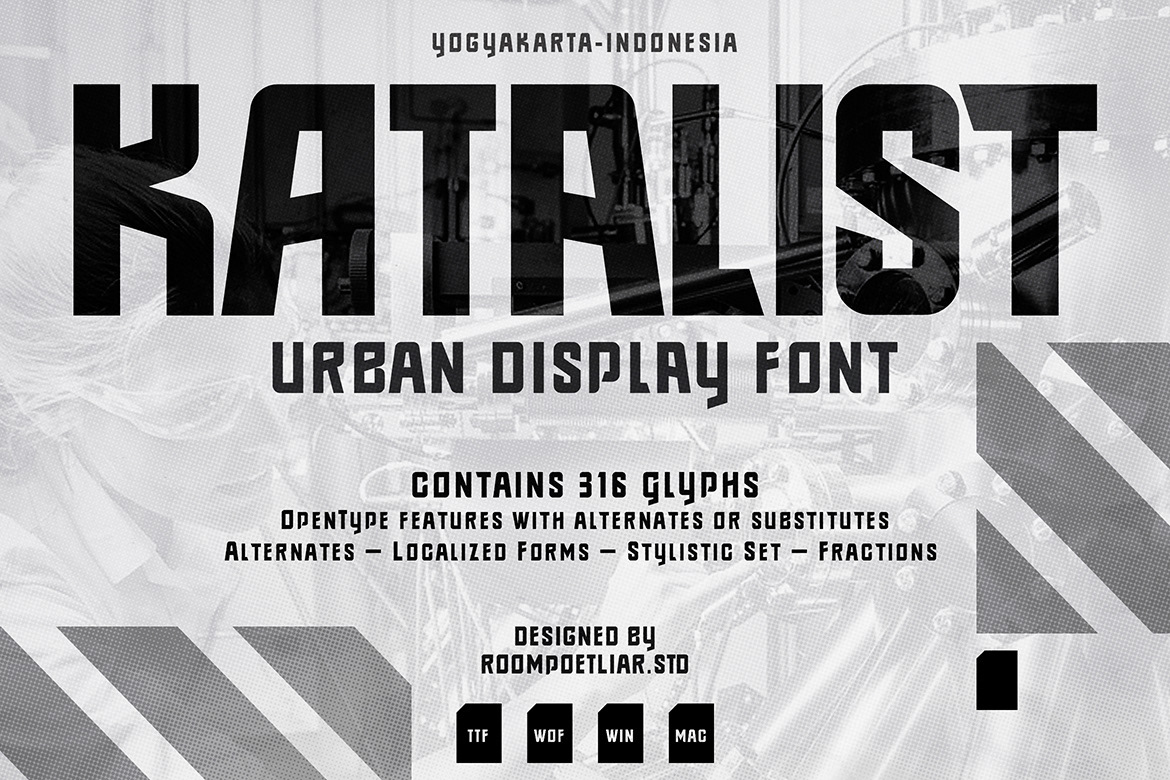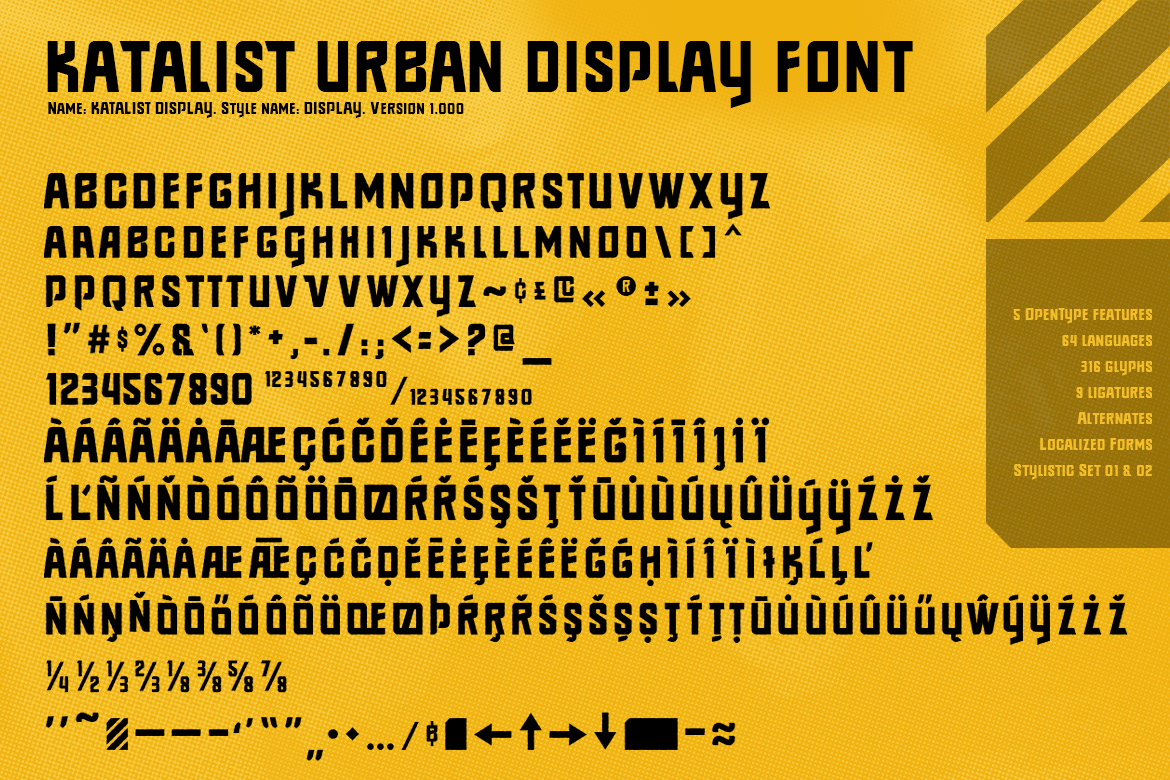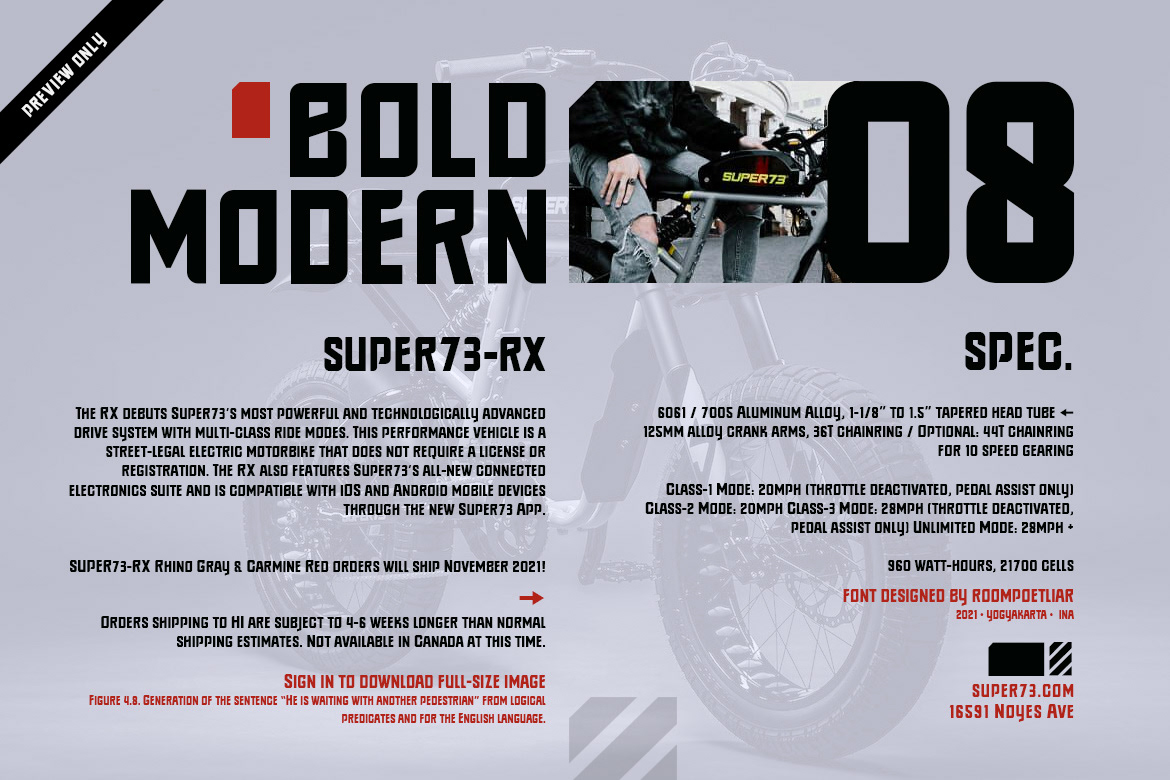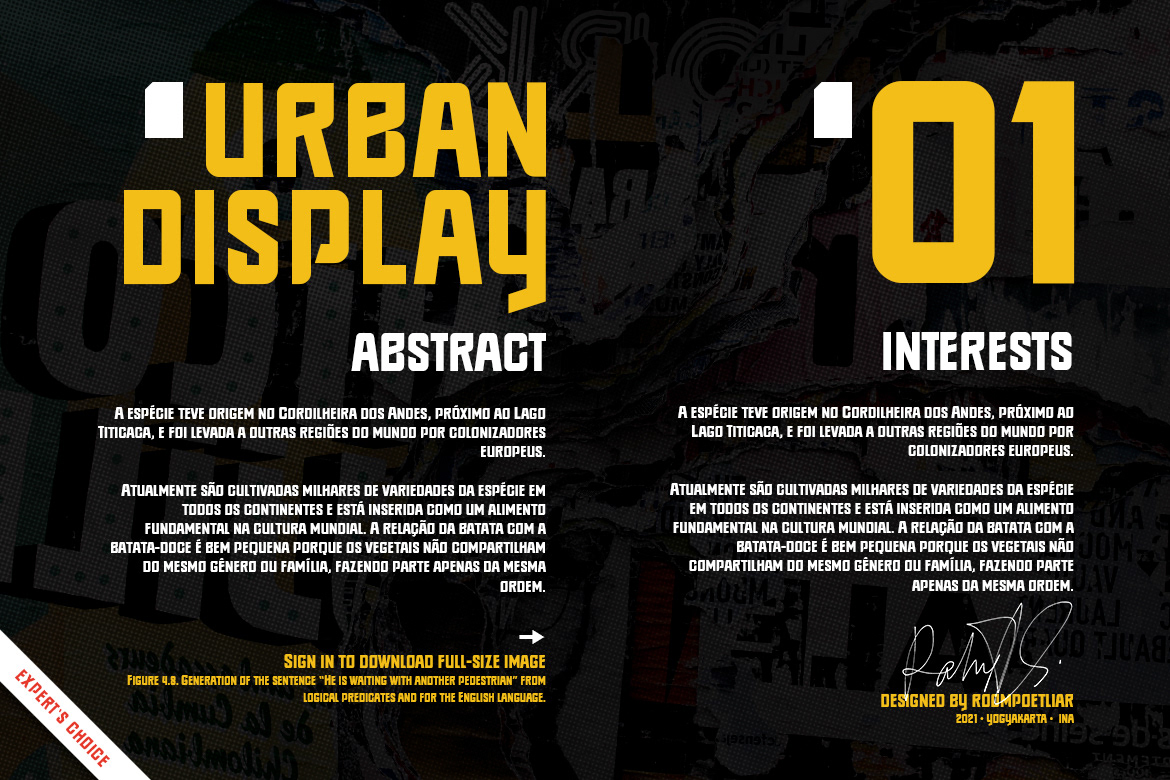
Katalist Urban Font Display. Strong-striking font with boxy and sharp feeling. Suits best for poster designs, headlines, typography projects (streetwear, construction, resistance, solidarity, movement, revolution), Religion event, E-Sport logos, sports jersey text, etc.
• 5 OpenType features • 64 languages • 316 glyphs
• 9 ligatures • Alternates • Localized Forms
• Stylistic Set 01 & 02